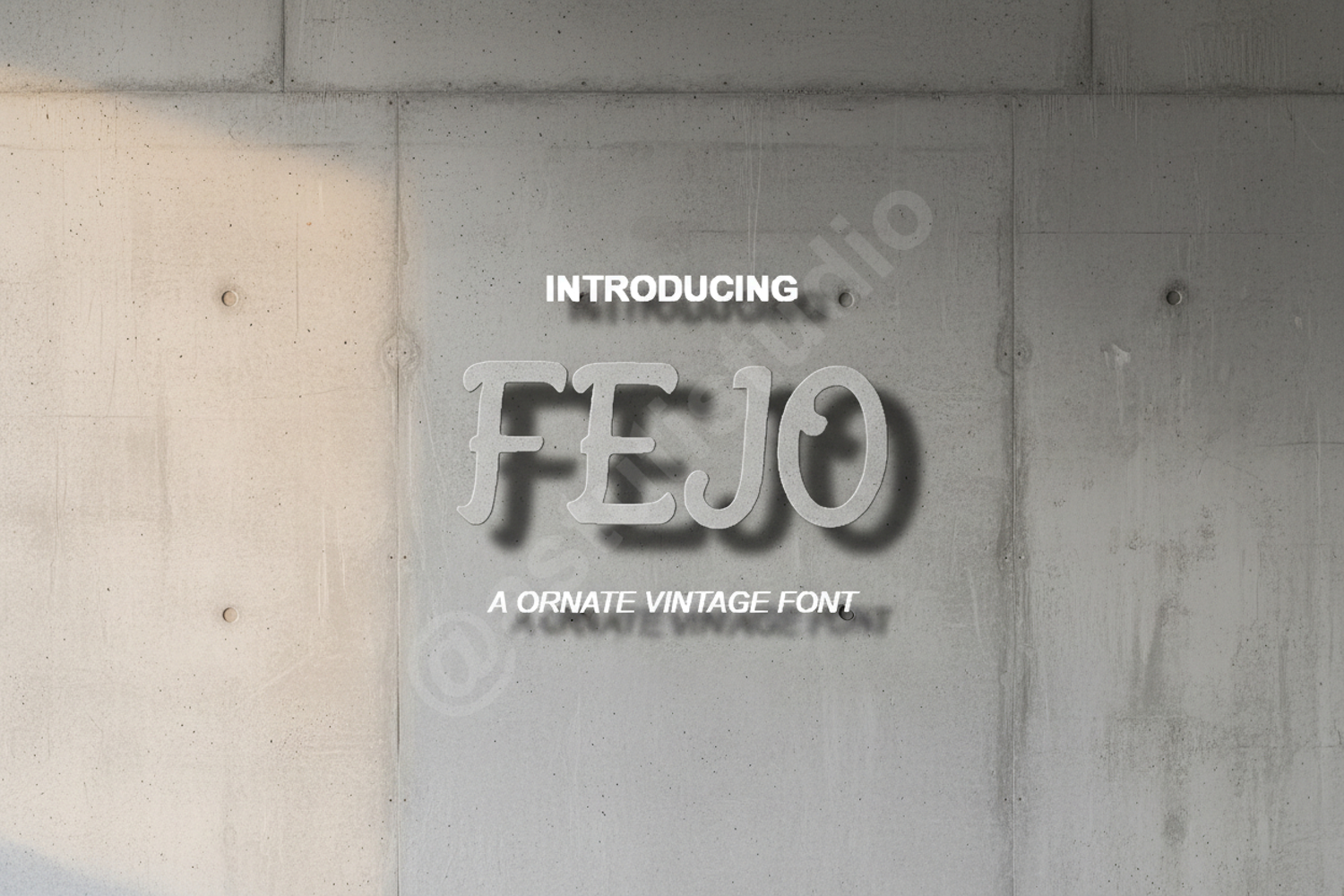
Fejo | Elegant Modern Serif Typeface
Fejo
## Introduction
Elevate your design projects with Fejo, a premium serif font that exudes sophistication and timeless style. Meticulously crafted with balanced proportions and clean lines, Fejo offers a perfect blend of classic serif aesthetics and contemporary flair. Whether you are aiming for a high-end luxury look or a clean minimalist vibe, this font provides the versatility needed to make your work stand out in a crowded market.
## Optimized Use Cases
Fejo is designed to perform beautifully across a wide range of creative applications, making it a staple for any designer's toolkit:
- Professional Branding and Identity Systems
- High-end Editorial Layouts and Magazine Headers
- Elegant Wedding Stationery and Invitations
- Minimalist Logo Designs and Wordmarks
- Sophisticated Social Media Graphics and Quotes
- Luxury Product Packaging and Premium Labels